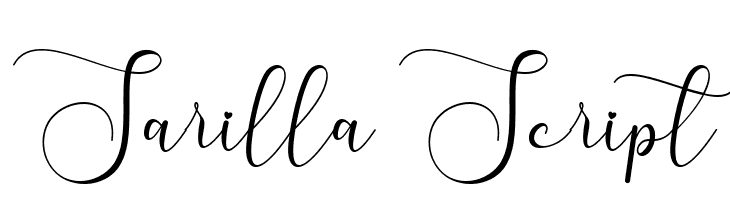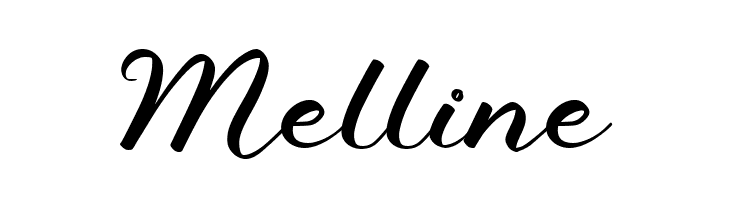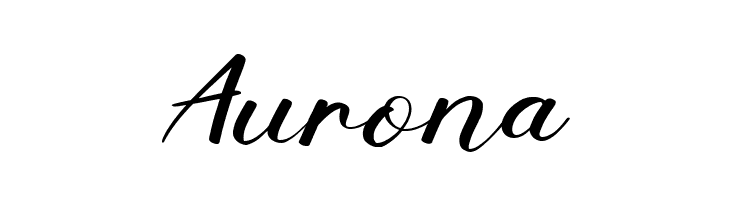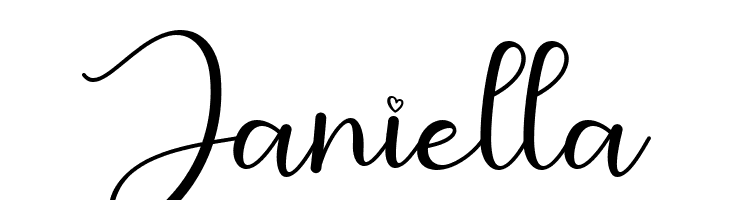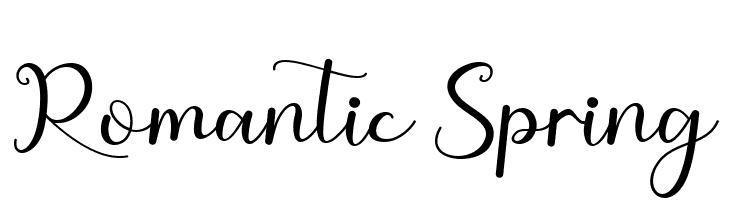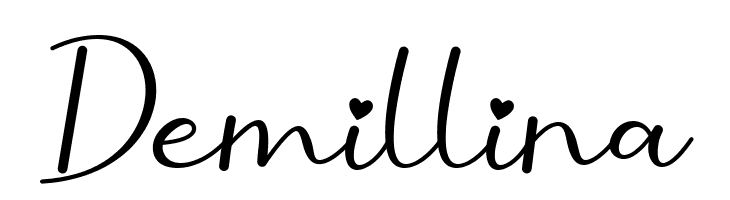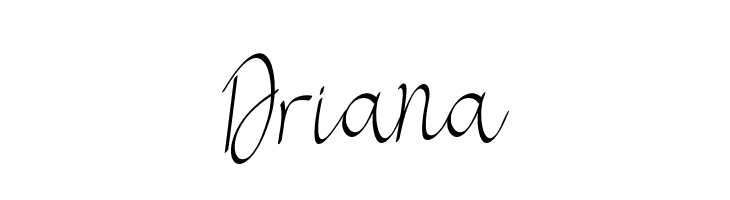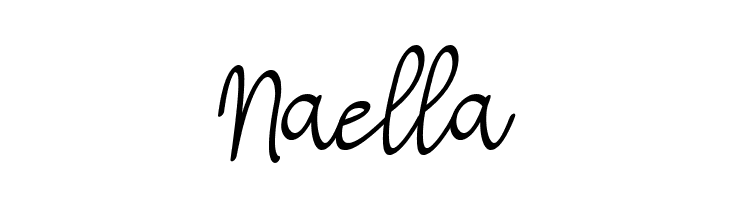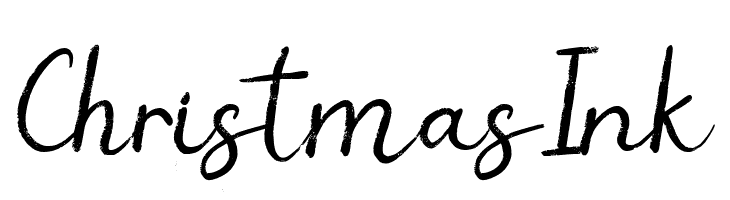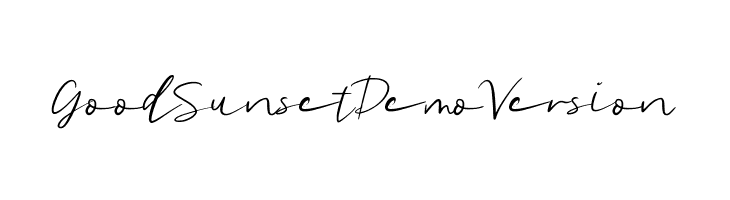
An elegant, flowing script font with interconnected, graceful curves.
A sophisticated and elegant script font with fluid, cursive letterforms.
A modern, elegant script font with flowing curves and playful heart accents.
A playful and elegant script font with a handwritten style.
A lively brush script font with bold, dynamic strokes and a hand-painted feel.
An elegant, cursive font with romantic loops and swirls.
A playful and elegant handwritten script with charming embellishments.
A lively and elegant handwritten font with fluid cursive letterforms.
A playful, casual handwritten font with fluid, connected letterforms.
A lively and expressive handwritten font with fluid, dynamic strokes.